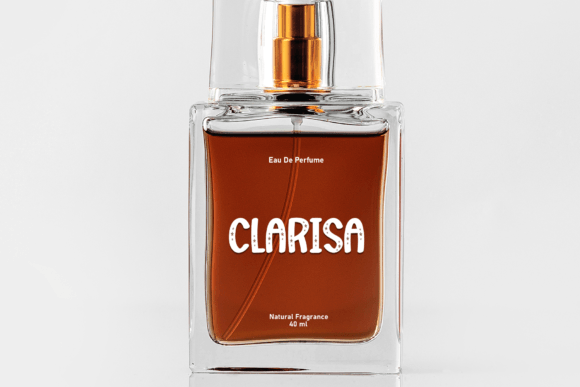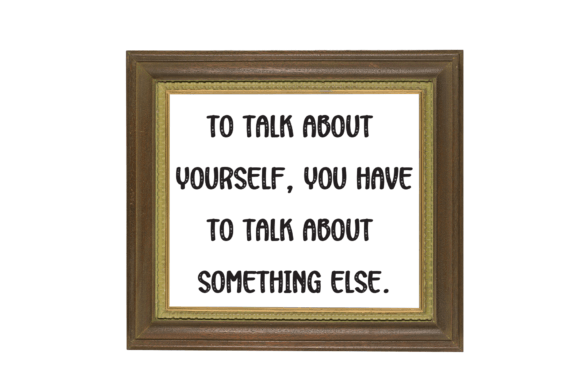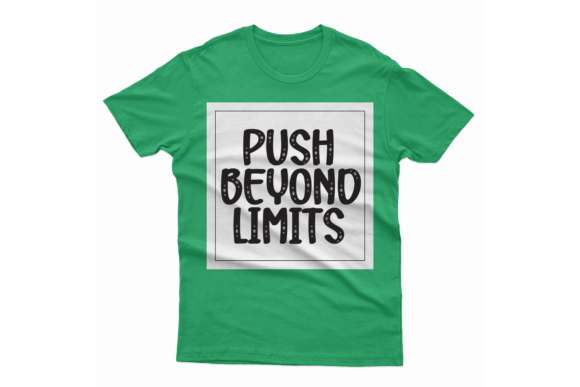
Introduction to Rainbow Flower Font Font
Rainbow Flower is a sweet and friendly handwritten font.
Rainbow Flower Font Font offers exceptional quality and versatility, making it a valuable addition to your design toolkit. Whether you’re creating for personal projects or commercial use, Rainbow Flower Font Font delivers professional results.